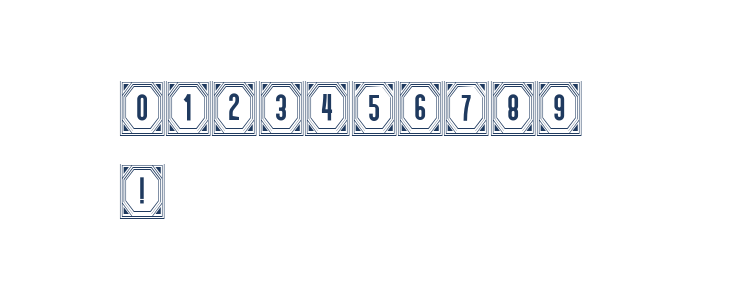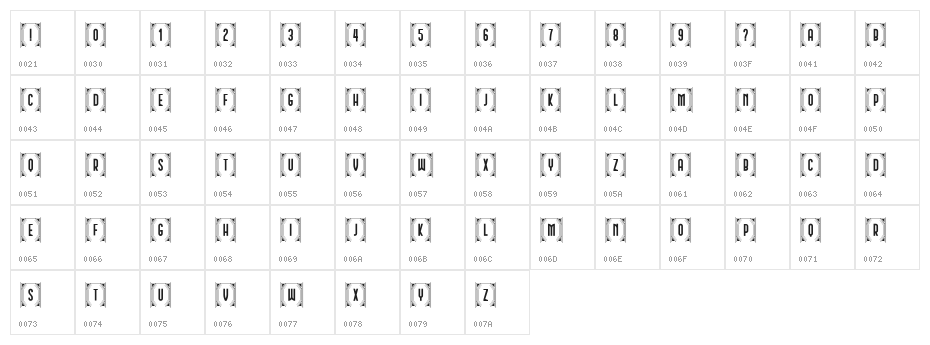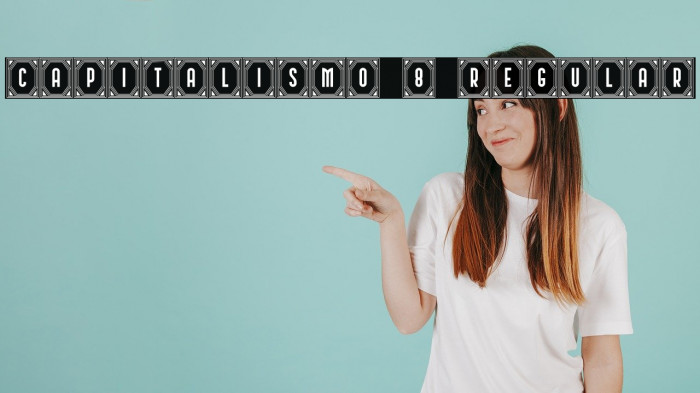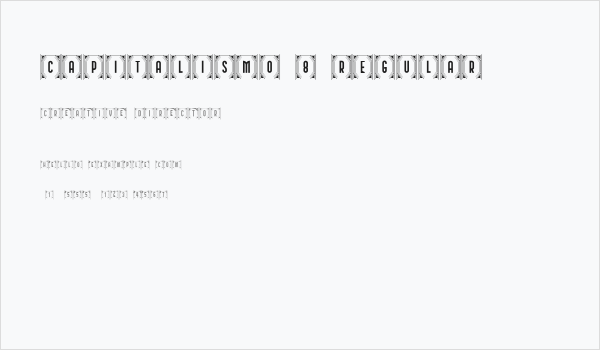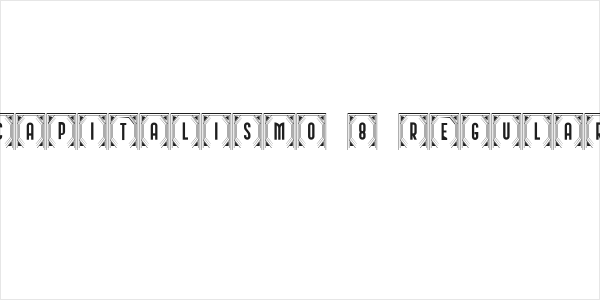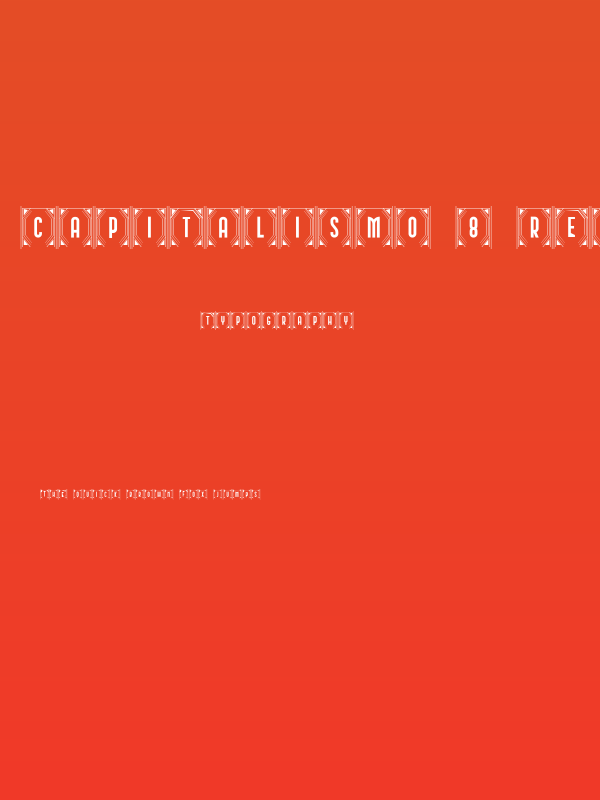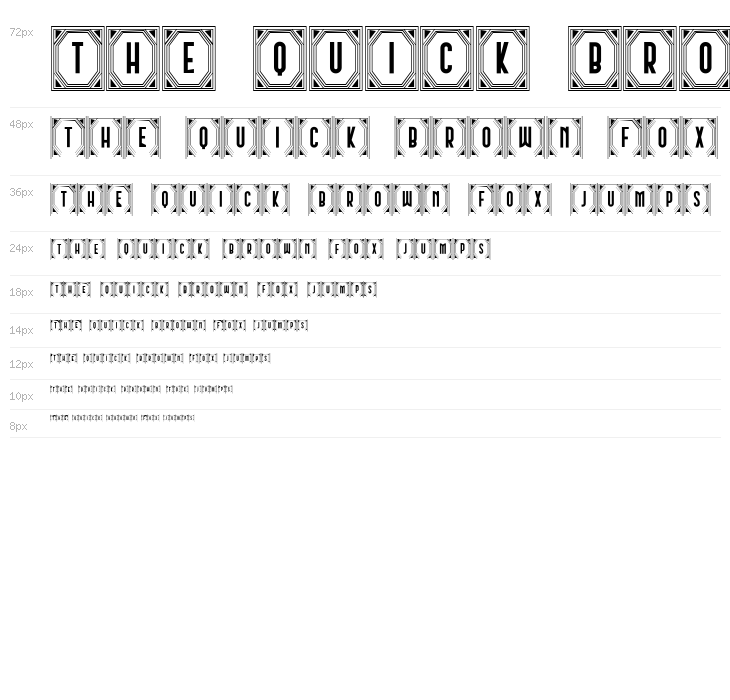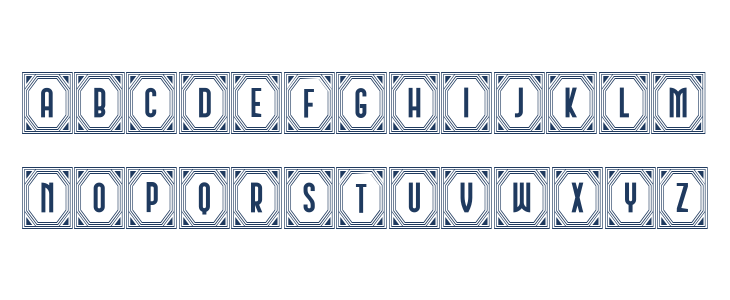
Capitalismo 8 Regular Font
Capitalismo 8 Regular Description
This font features a bold, geometric design with each character enclosed in a decorative, octagonal frame. The letters are uppercase and have a strong, industrial feel, reminiscent of early 20th-century design. The characters are evenly spaced within their frames, creating a uniform and structured appearance. The font's unique style is characterized by its sharp angles and clean lines, making it stand out as a decorative element. The numbers and special characters follow the same design principles, ensuring consistency across all elements.